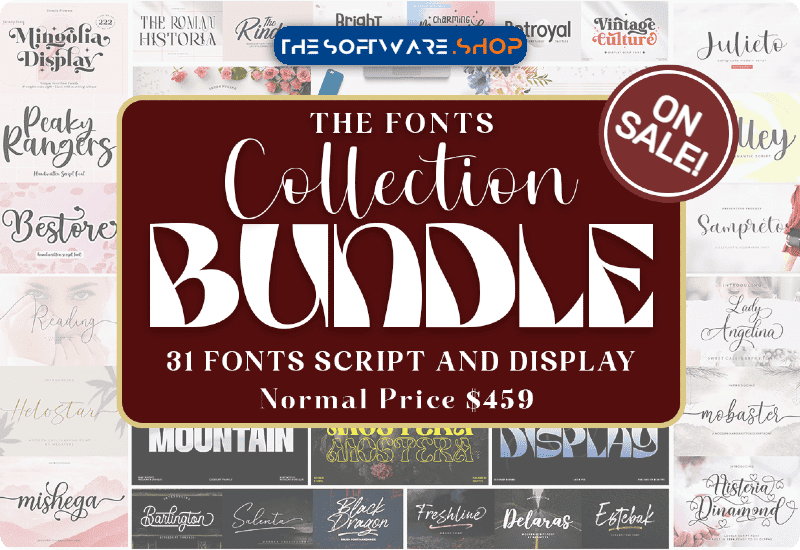
Is your creative toolkit craving for an upgrade? Here’s something that might pique your interest — a magnificently curated “The Font Collection Bundle”, offered totally free by MegaType! Consisting of not one, not two but a whopping collection of 31 handpicked premium fonts each being intricately designed meant cater unique project requirements ever. Designer or hobbyist, top up your creativity reservoirs these exquisite offerings.
Delve Deep into Details with this Fancy Font Compendium!
Every font in Font Collection comes from varied genres ranging slick script & handwritten fonts towards classy display series even serif types too!
- The Rinden Script & Handwritten Font
- Lady Angelina Script Script & Handwritten Font
- Charming Mermaid Script & Handwritten Font
- Reading Czcionki Skryptowe Czcionka
- Chandler Mountain Fuentes Display Fuente
- Bright Aurora Display Font
- Marchanda Script & Handwritten Font
- Peaky Rangers Script & Handwritten Font
- Black Dragon Script & Handwritten Font
- Salenta Script & Handwritten Font
- Barlington Script & Handwritten Font
- Vintage Culture Czcionki Szeryfowe Czcionka
- Histeria Dinamond Script & Handwritten Font
- Mishega Script & Handwritten Font
- The Roman Historia Serif Font
- Freshline Script & Handwritten Font
- Kamelia Script & Handwritten Font
- Ralley Script & Handwritten Font
- Agoesa Display Font
- Mostera Display Font
- Mingolia Display Serif Font
- Sherlia Script Fuentes Caligráficas Fuente
- Julieto Script & Handwritten Font
- Bestore Script & Handwritten Font
- Estebak Script & Handwritten Font
- Helostar Script & Handwritten Font
- Mobaster Script Script & Handwritten Font
- Delaras Script & Handwritten Font
- Retroyal Family Sans Serif Font
- Sampreto Script & Handwritten Font
- Gebrina Script Script & Handwritten Font
A snapshot among various beautiful typefaces includes Rinden Script, Lady Angelina Script… and many more exuding different theme vibes tantalizing traditional style modern chic elegance further down including versatile samples like Vintage Culture serene historical touch via Roman Historia Serif etc.
Completing classification list contemporary calligraphic style – say hello Sherlia Script bringing life words stroke elegant readability contrasted rising current trends uniquely crafted sets as Mostera Display Mingolia (Every title listed just sneak peek still got tons more dig deeper reignite creative juices within!).
Awaken your artistry with Font Collection Bundle; whether it’s designing elegant invites trendy social media images personalized branding logos certainly add magic touch everything create!